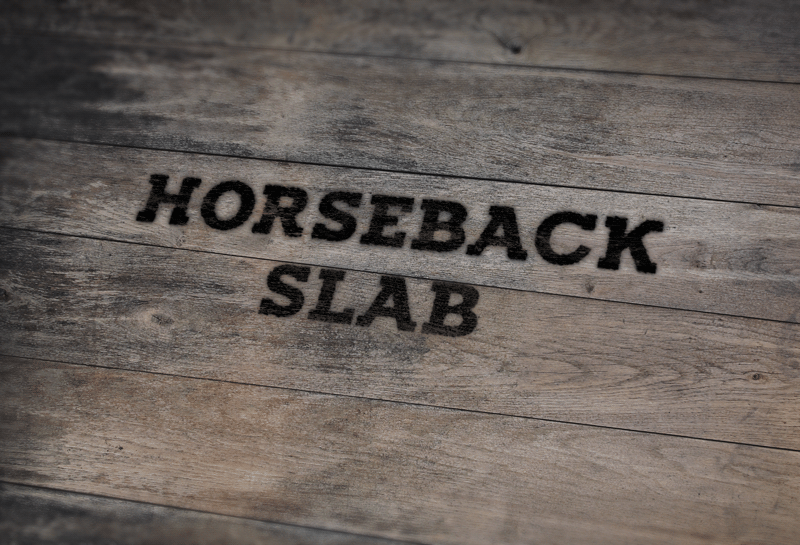
A fresh slab typeface with a slight retro country feeling. Perfect for branding with a hot iron rod. If you donate $5 or more you get a basic commercial license for 1-5 users, and if the font is made into a PRO version later on then you get a copy of that, free of extra charge. Thanks for you support! |